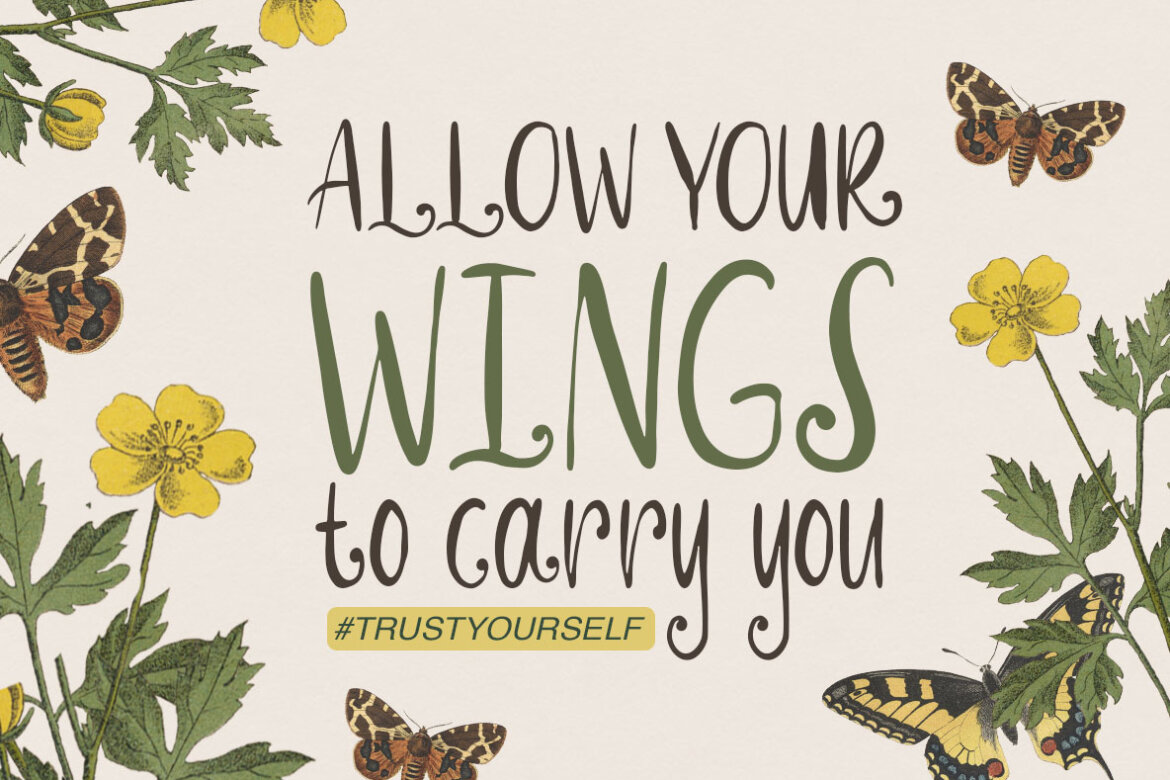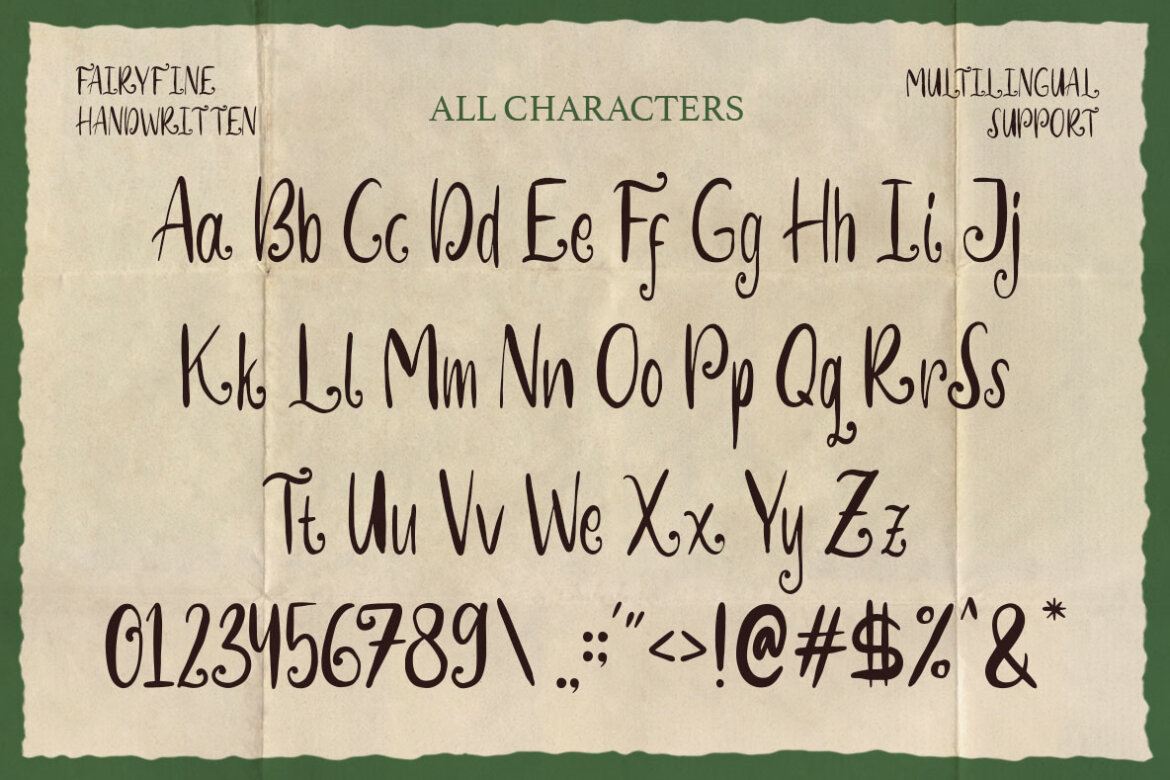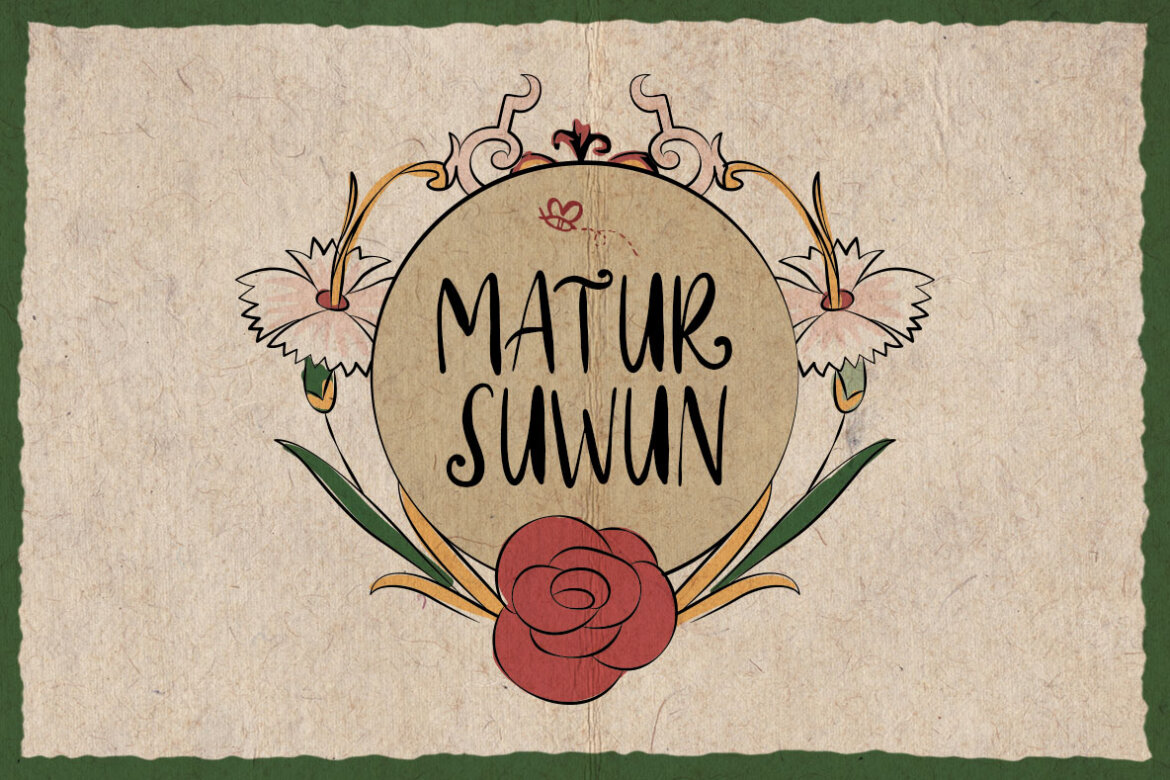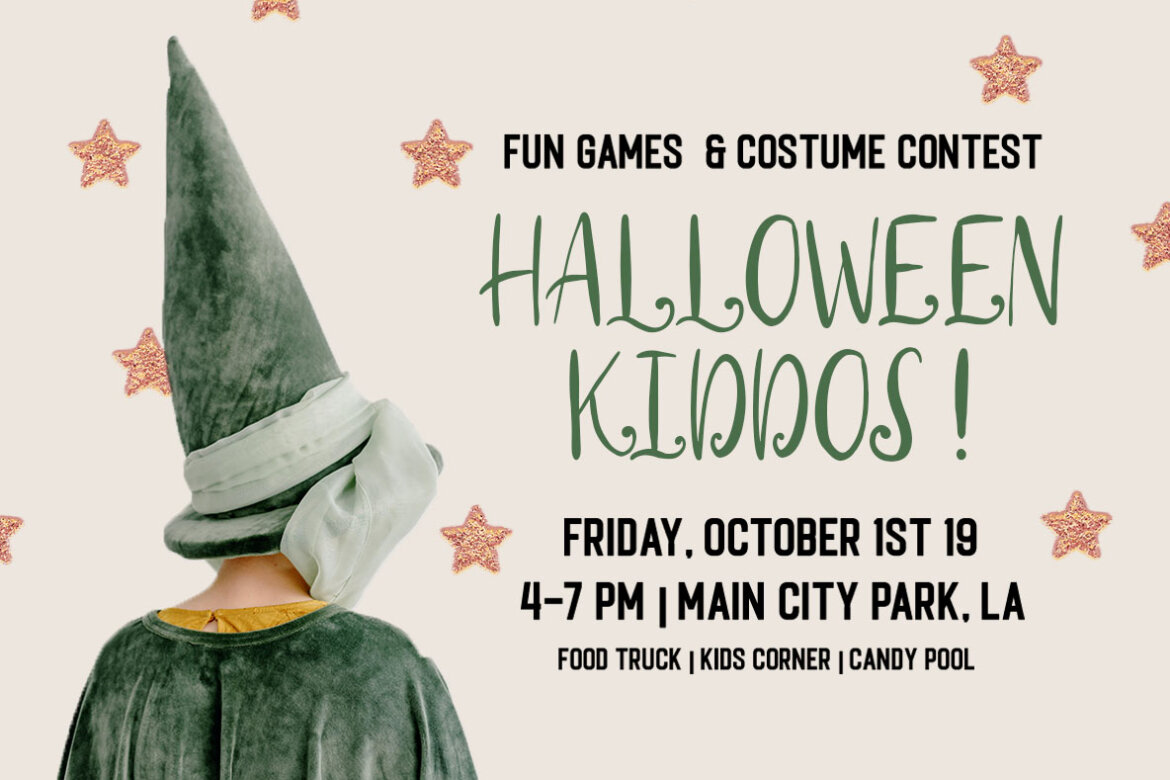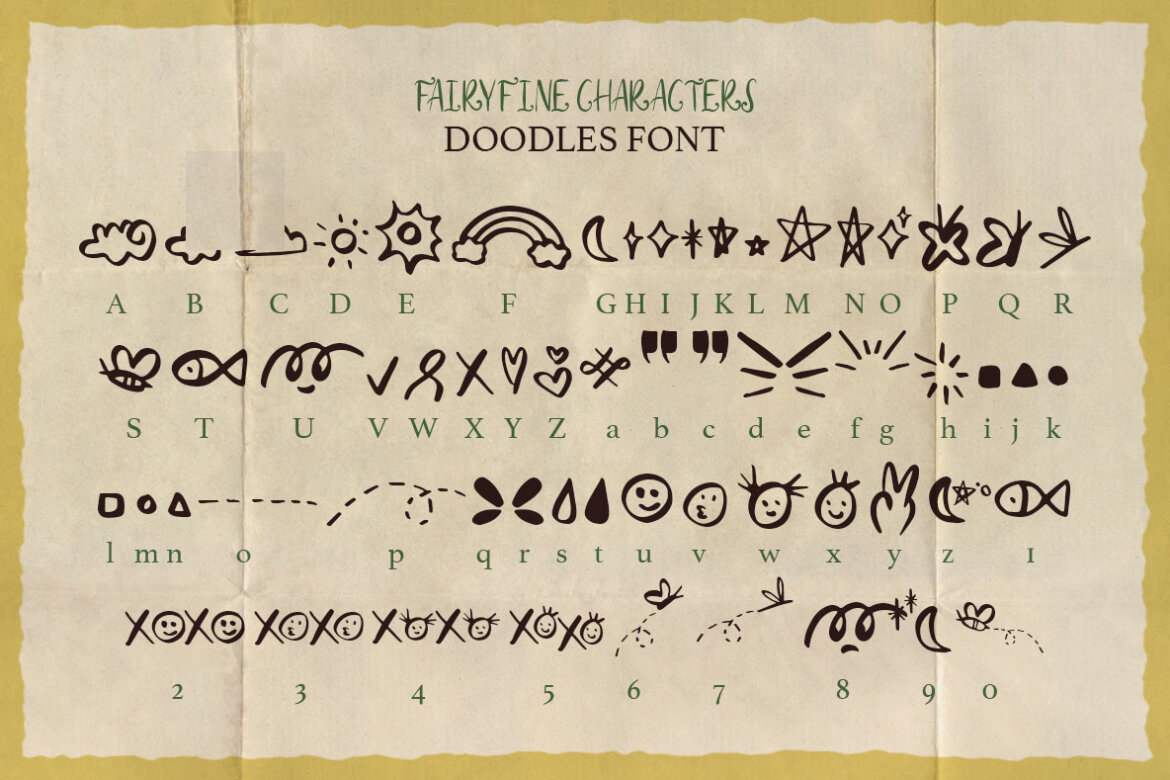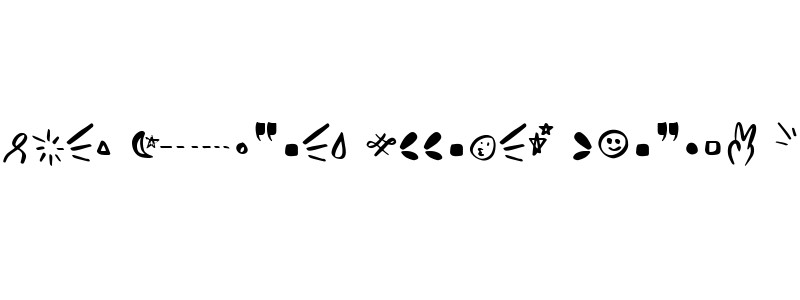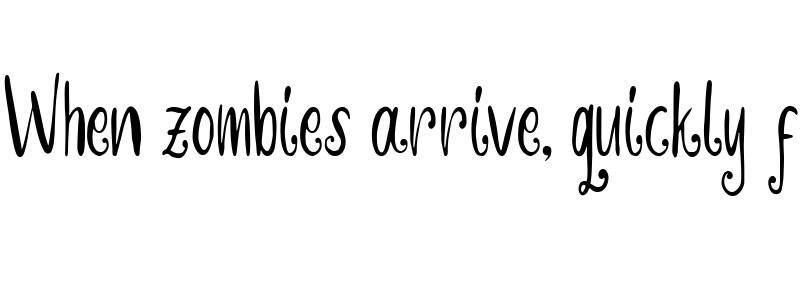
Fairyfine FREE Handwritten Font
Let Fairyfine ignite your creative spark! Inspired by the enchantment of fairy tales, this handcrafted font comes with whimsical doodles to embellish your imagination. It's the ideal choice for a myriad of design projects, including book covers, tote bags, invitations, business cards, brand logos, and anything else your creativity can dream up!